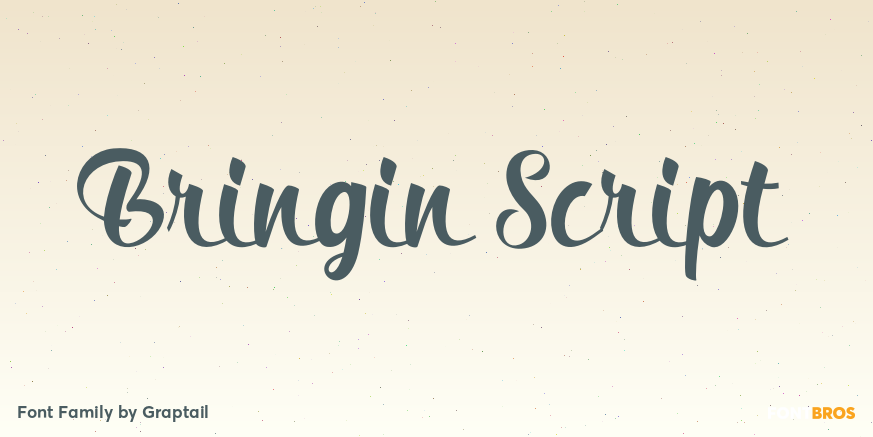
Bringin Script
About Bringin Script
Bringin is an informal script font with a bouncy, smooth feel and a bunch of alternative characters to choose from. You have a lot of options to customize it, making it perfect for logos, packages and titles. Supports OpenType features such as swash,…